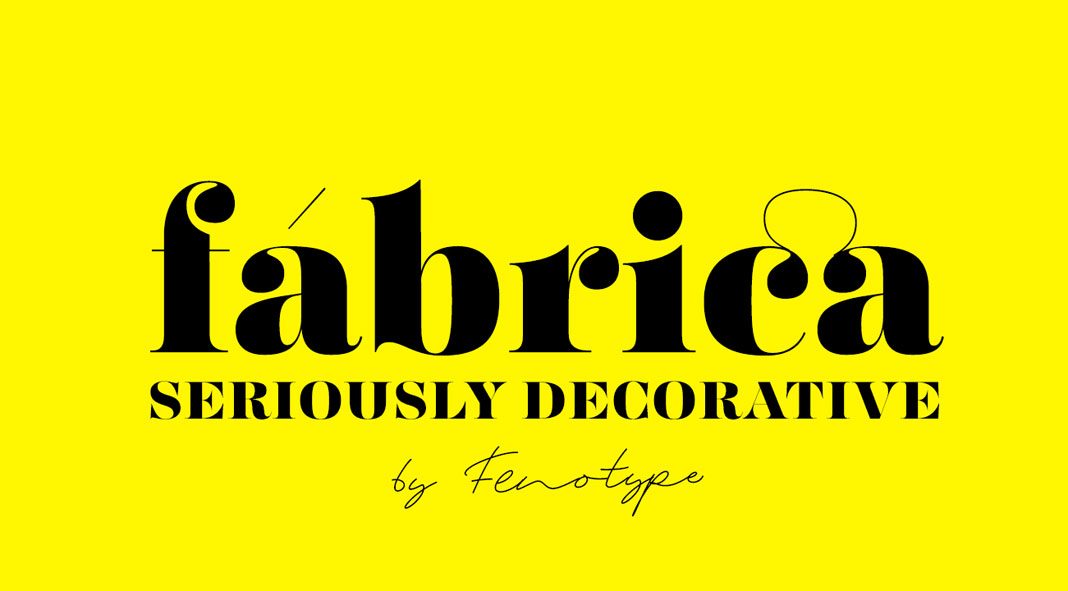
Fábrica, an elegant vintage-inspired display font with a special flair.
Designed by Emil Bertell, Erik Bertell, and Teo Tuominen for foundry Fenotype, Fábrica is one of the most elegant and unique display fonts that have been published in 2019. Equipped with two styles, Heavy and Heavy Italic, this typeface was made for use in striking headlines, poster designs, website headers, magazine covers, just to name a few. The hairline accents will add this extra dose of elegance to your designs and its delicate curves make it look outstanding in every application. The Fábrica font comes with numerous typographic features including ligatures, old-style figures, and fractions. To learn more, just click on one of the following links or check out the images below.